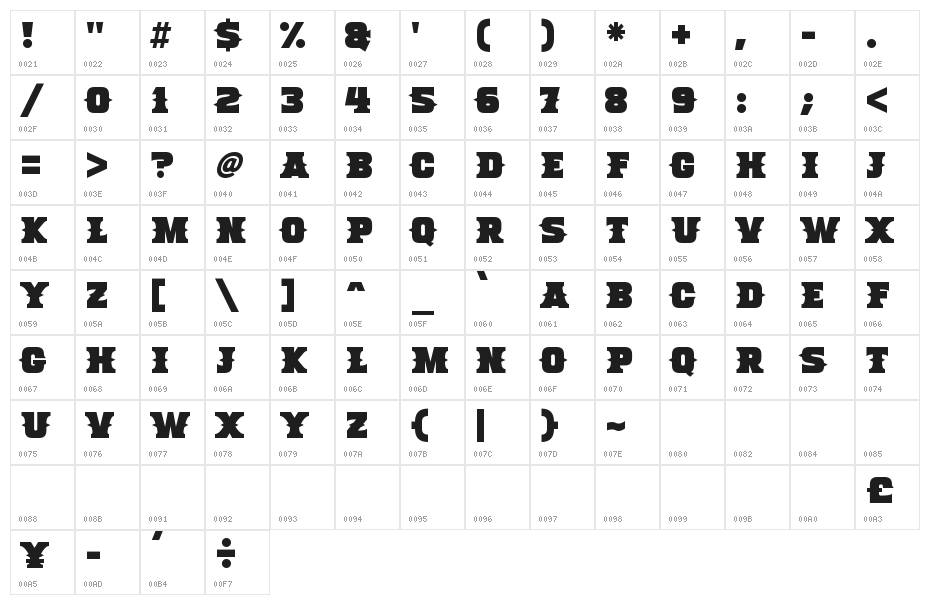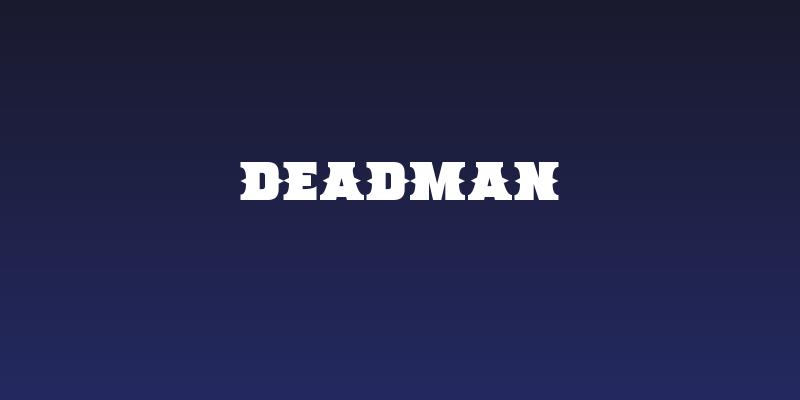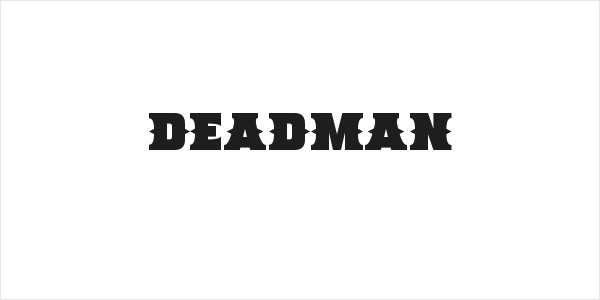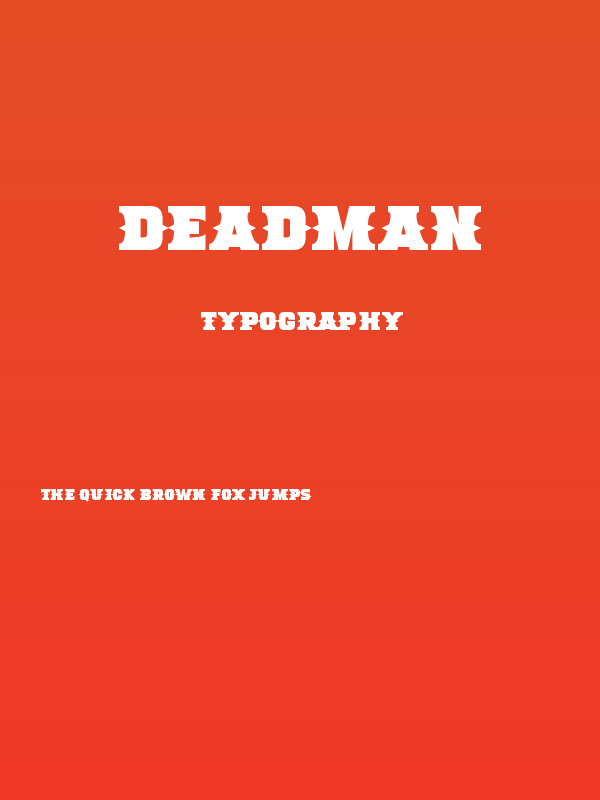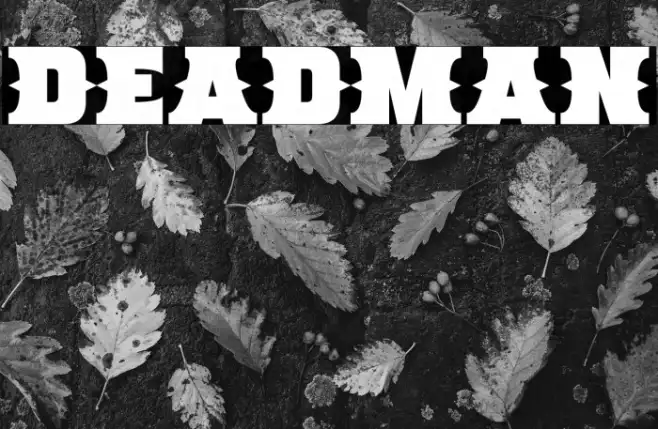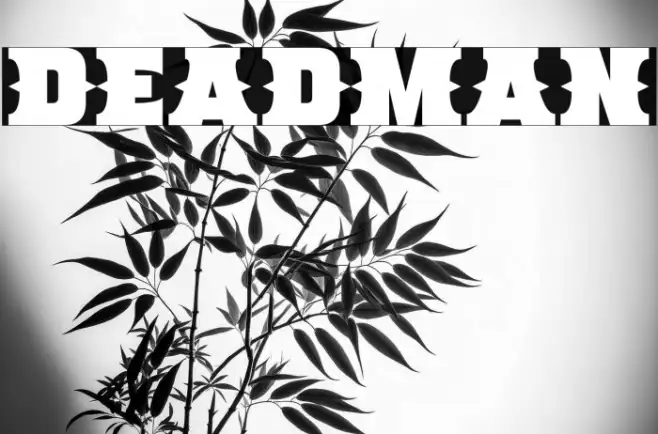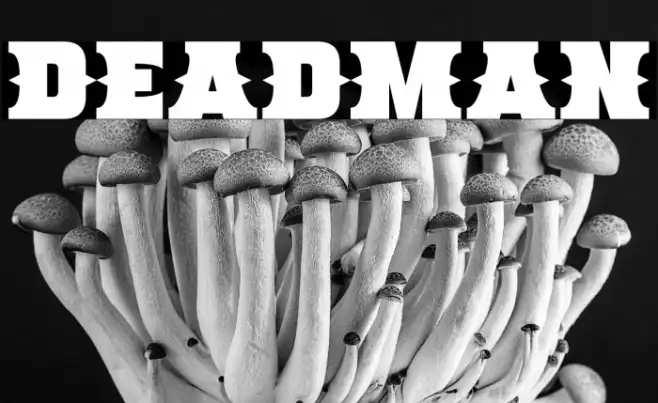
Deadman Font
Deadman Description
This font features a bold, impactful design with a distinctive, heavy slab serif style. The characters are characterized by thick, block-like forms with unique cut-out shapes that create a striking visual effect. The uppercase letters are uniform in height, while the numbers and special characters maintain the same boldness and style. The font's design is reminiscent of vintage western typography, making it ideal for projects that require a strong, attention-grabbing aesthetic. Its unique cut-out details add a decorative element that sets it apart from more traditional slab serif fonts.
| Proposed Projects | Ideal for posters, logos, branding, and any design requiring a bold, vintage aesthetic. |